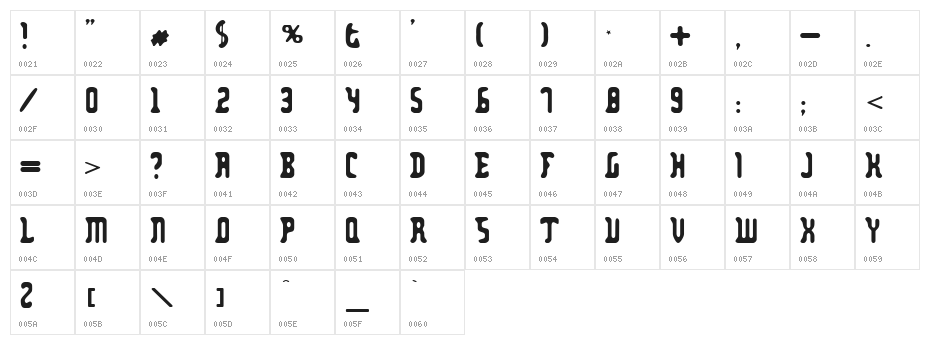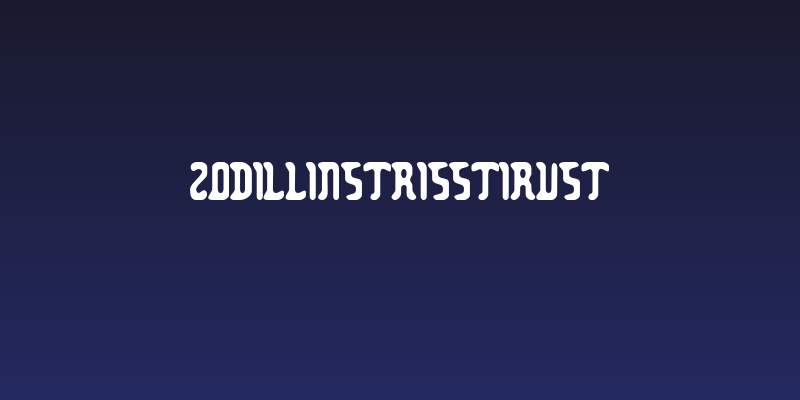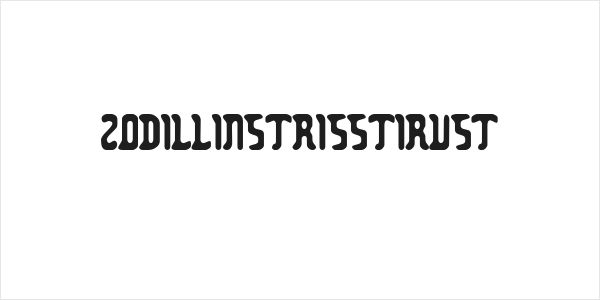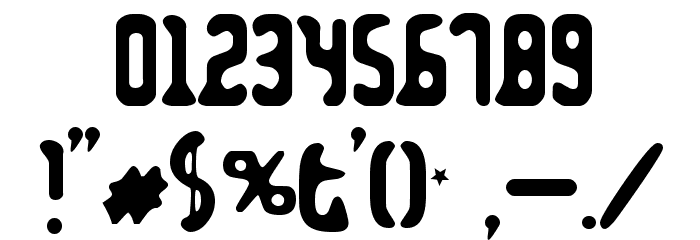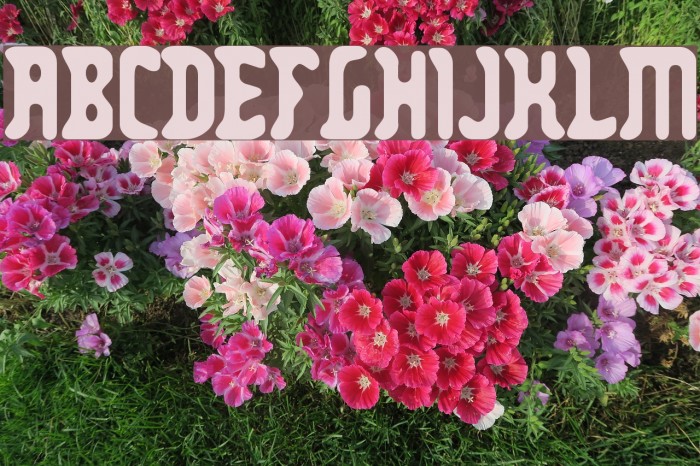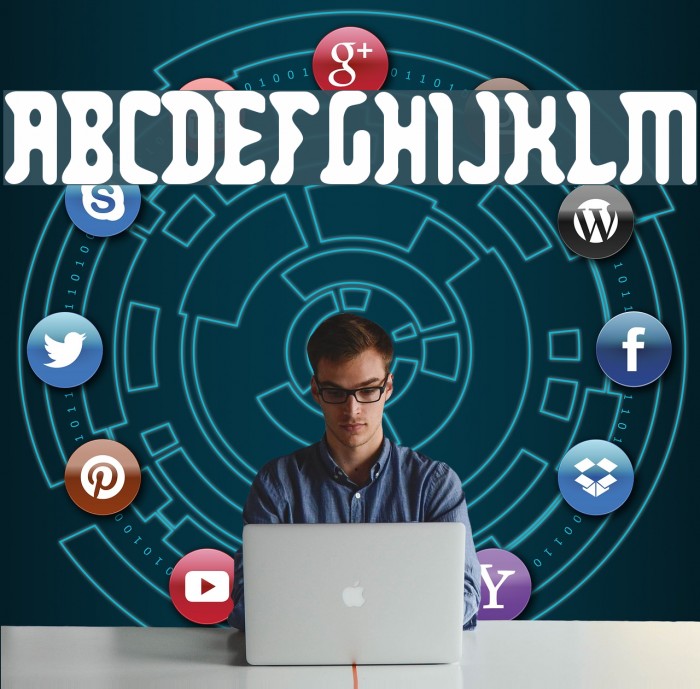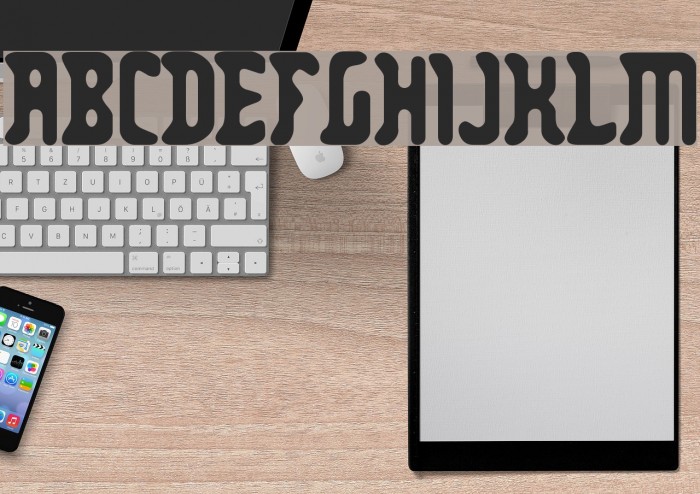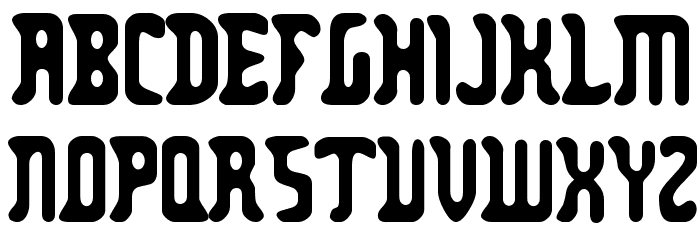
Zodillinstrisstirust Font
This font features bold, rounded characters with a distinct geometric style. The letters are uniformly thick, creating a strong and impactful appearance. The design is modern and slightly futuristic, with a playful touch due to its rounded edges. The characters are evenly spaced, providing a clean and organized look. The numbers and special characters maintain the same bold and rounded style, ensuring consistency throughout the font. This font is ideal for projects that require a bold statement, such as posters, headlines, and branding materials.
| Proposed Projects | Ideal for posters, headlines, branding, and any design needing a bold statement. |